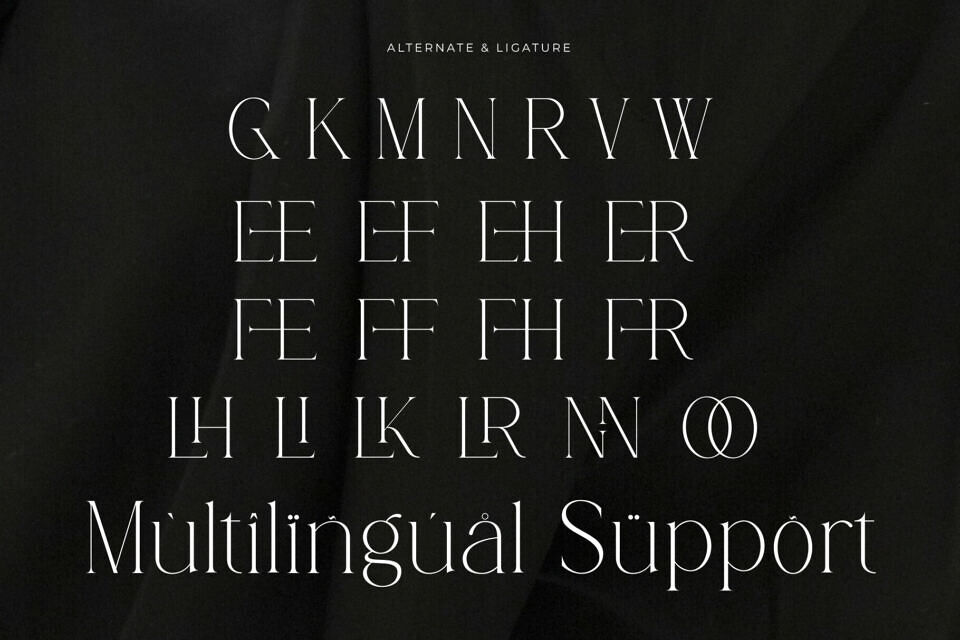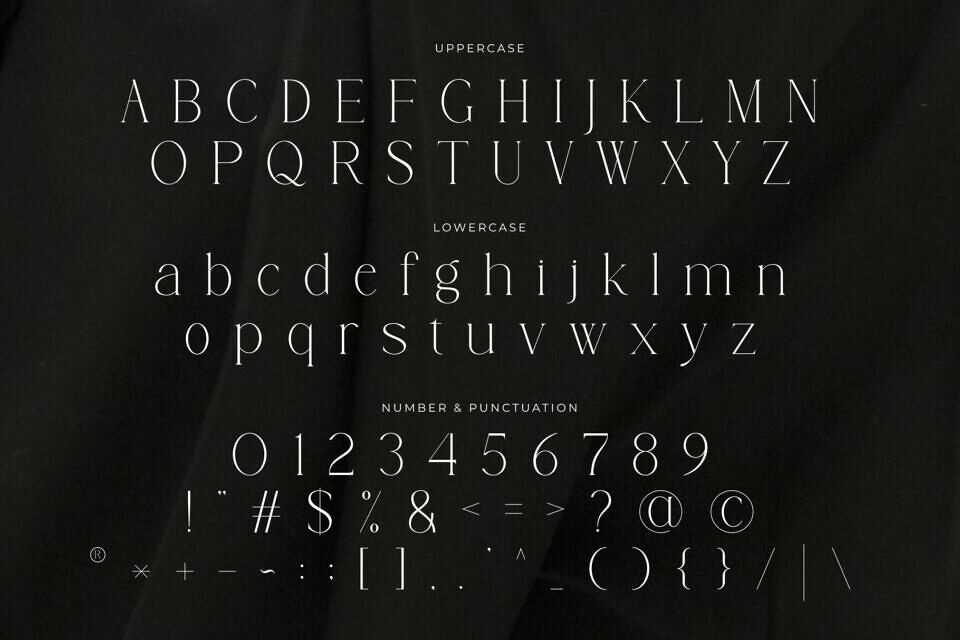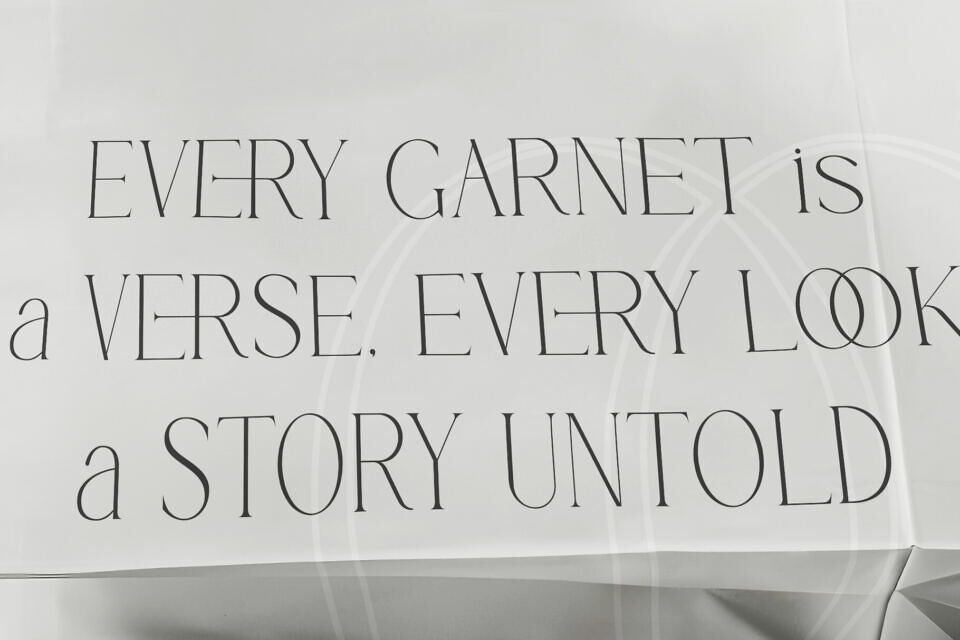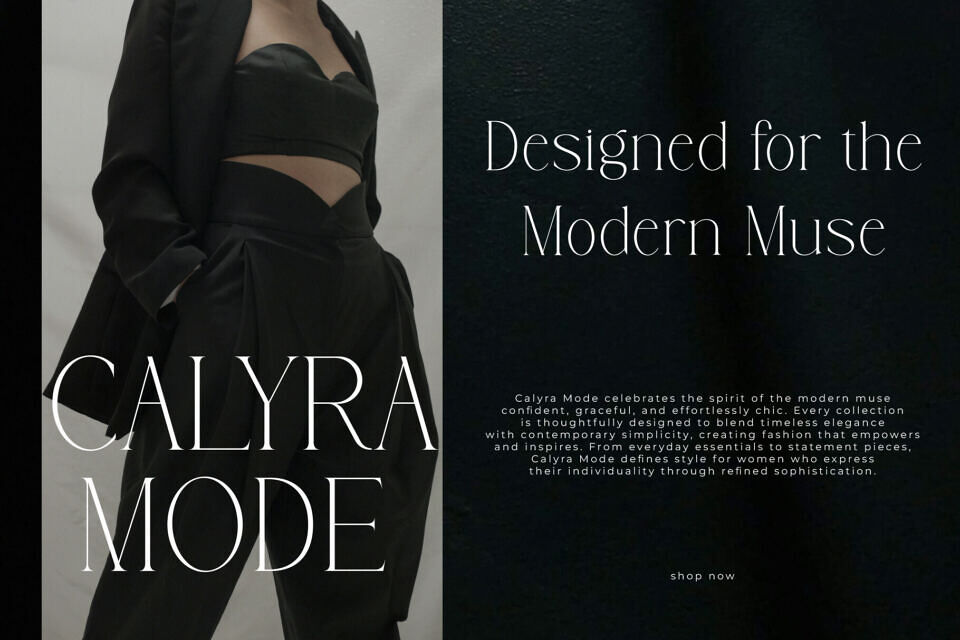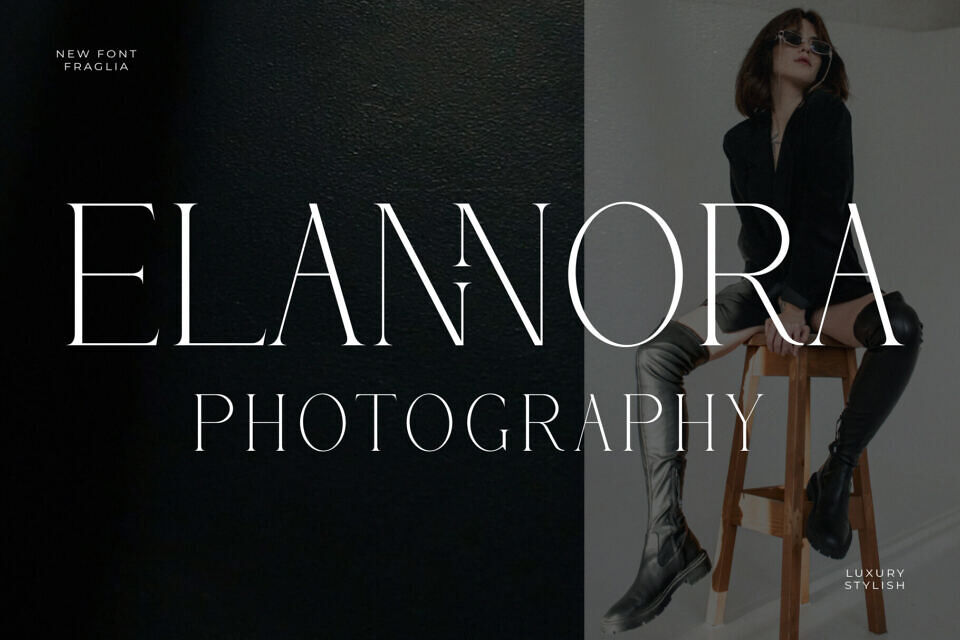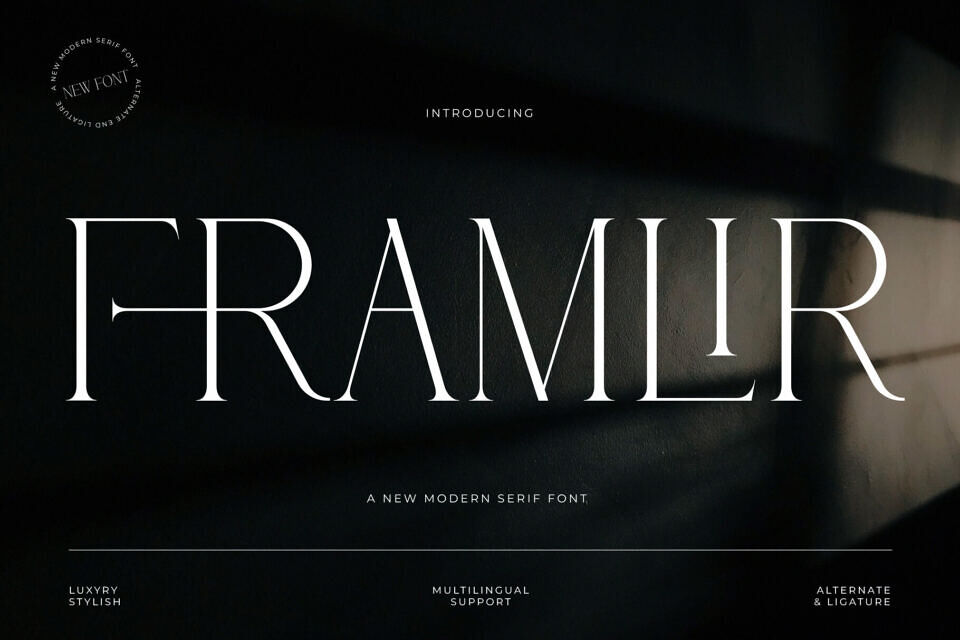
Framlir Font
Exude high-end elegance with Framlir, a cinematic display serif that captures a “luxurious-and-legendary” soul. This typeface features tall, high-contrast letterforms characterized by razor-thin hairlines, rhythmic sweeping curves, and unique ligatures that bridge the gap between classic editorial style and modern minimalism.
With its sophisticated structural weight and prestigious personality, Framlir is the premier choice for independent luxury fashion branding, high-end cosmetic packaging, wedding photography watermarks, and high-impact “sleek-and-stately” social media headers.